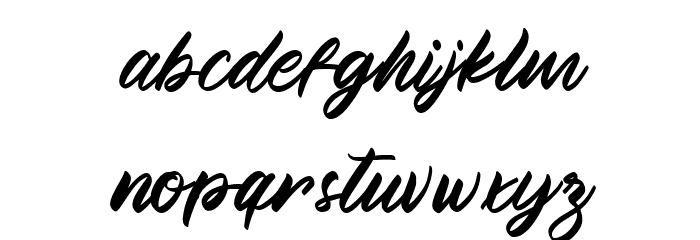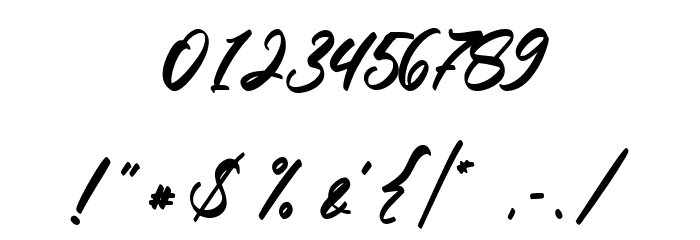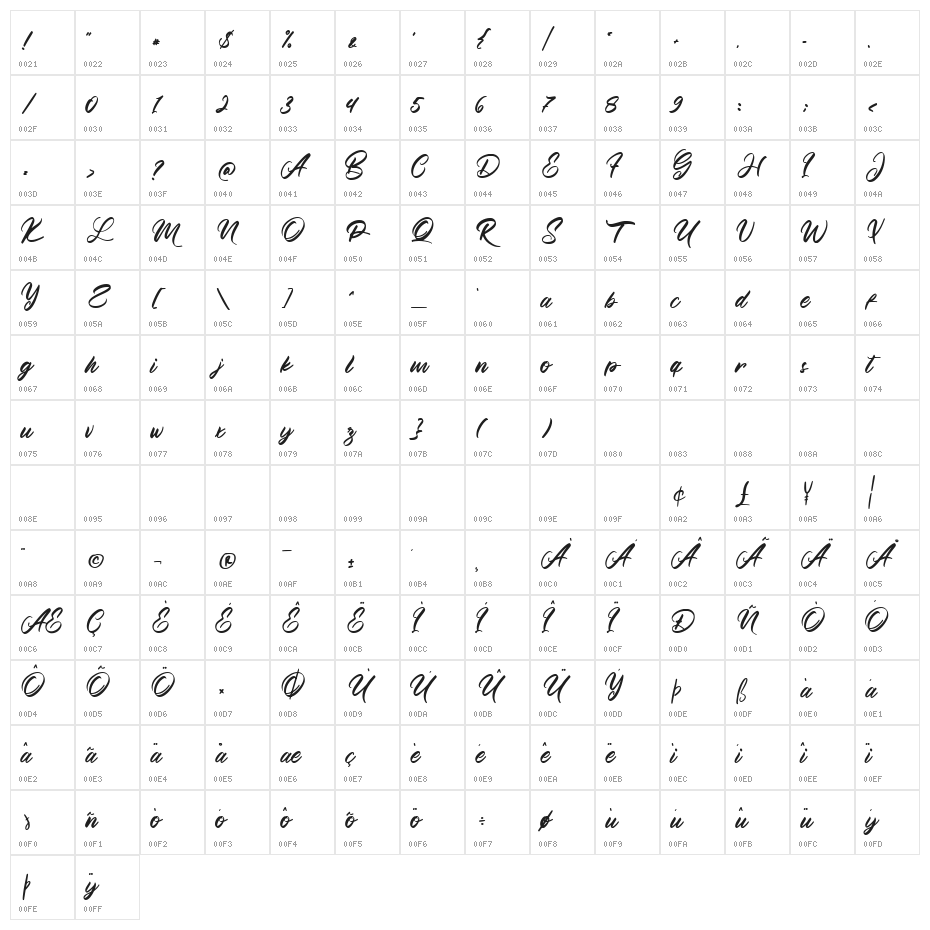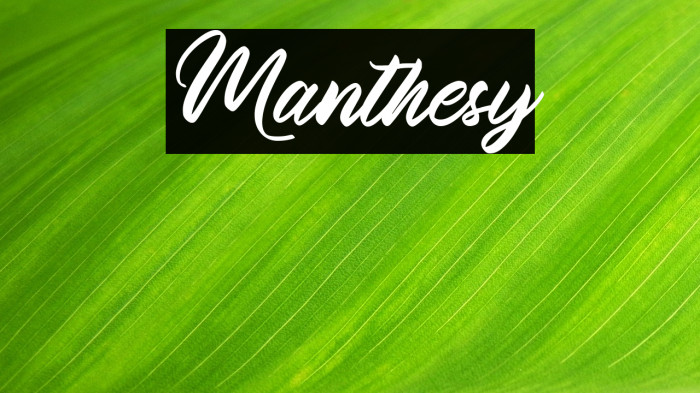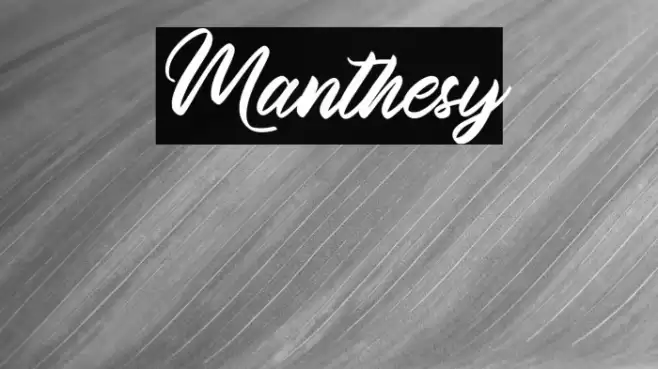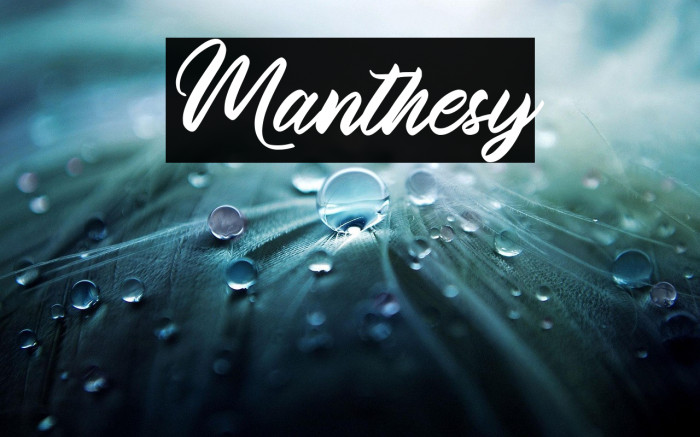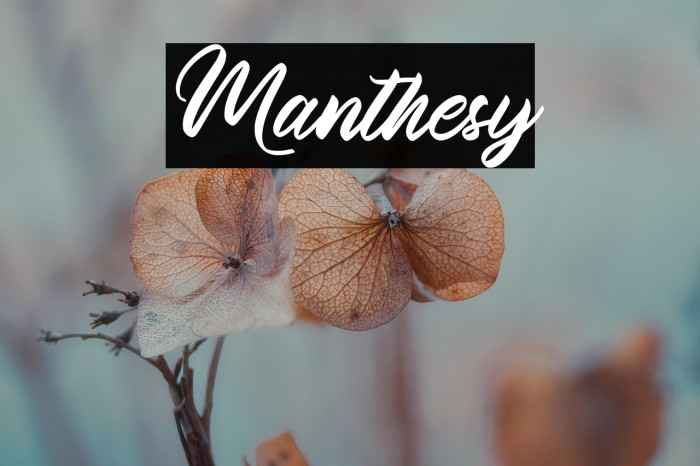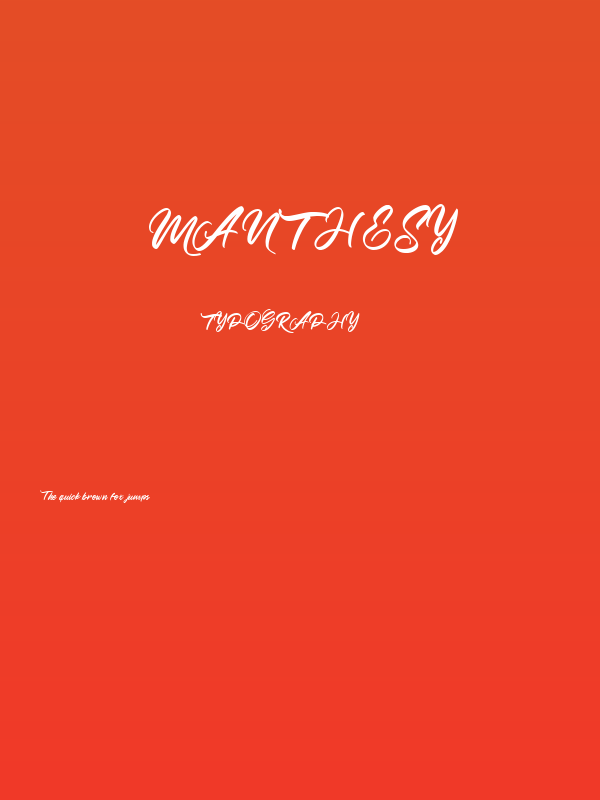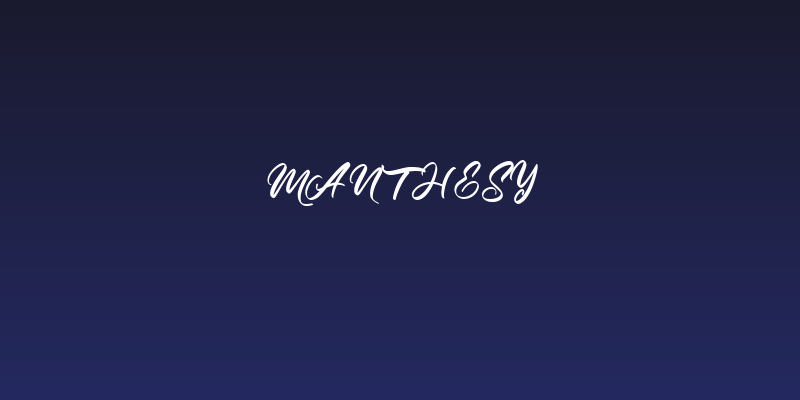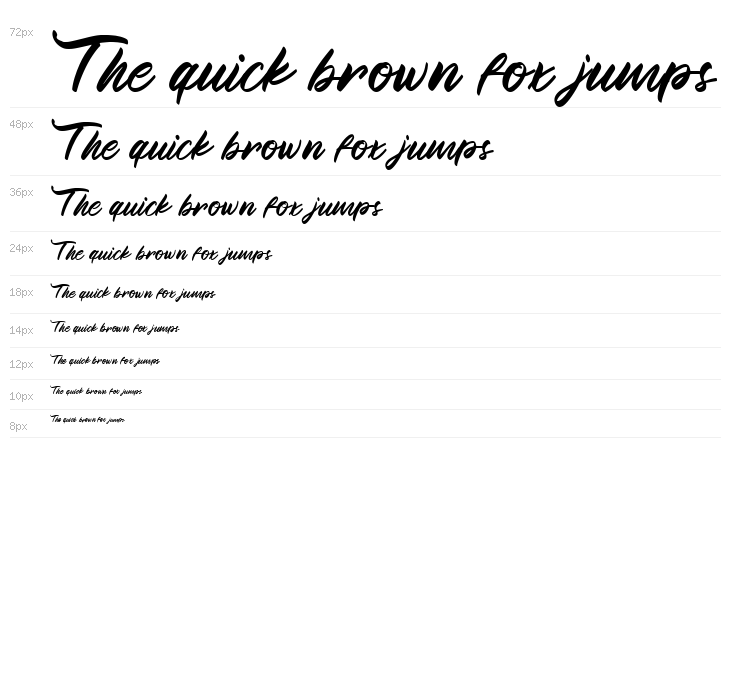
Manthesy Font
This font exudes a classic and elegant script style, characterized by its flowing, cursive letters that mimic traditional handwriting. The uppercase letters are bold and prominent, with graceful loops and curves that add a touch of sophistication. The lowercase letters maintain a consistent flow, enhancing readability while preserving the font's artistic flair. Numbers are styled to match the overall script theme, ensuring a cohesive look across all characters. Special characters are thoughtfully designed, integrating seamlessly with the alphabetic characters. This font is perfect for projects that require a personal, yet refined touch.
A classic, elegant script font with flowing, cursive letters.
- Proposed Projects: Ideal for wedding invitations, greeting cards, elegant branding, and personal stationery.
- Category: Script
- Overall Style: Classic
- Use Case: Logos, Invitations, Greeting Cards